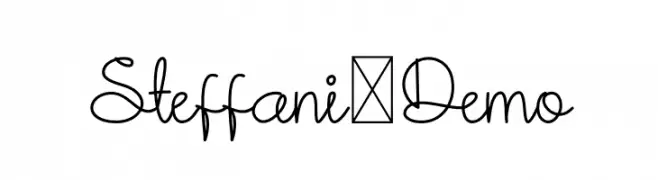
( Fonts by RudynFluffy )
A decorative and elongated font with a futuristic and bold style.
A lively and elegant script font with flowing, cursive letters and ornate flourishes.
A flowing, cursive script font with elegant loops and swashes.
( Fonts by www.houseoflime.com )
The image contains decorative symbols, not a valid font.
( Fonts by www.houseoflime.com )
A bold, decorative font with a starry texture, perfect for creative projects.
( Roch Art )
An elegant, flowing script font with a handwritten style and delicate line work.
( Marta van Eck Designs - www.polish-your-art.com/boutique/index.php?main_page=index&cpath=9_14 )
A decorative steampunk font with gear and cog motifs, perfect for vintage-themed designs.
( facebook.com/steelgohst.art )
A casual, handwritten-style font with smooth, fluid strokes and a personal touch.
A whimsical, playful script font with flowing, interconnected letters.
A flowing, cursive font with an elegant and sophisticated style.